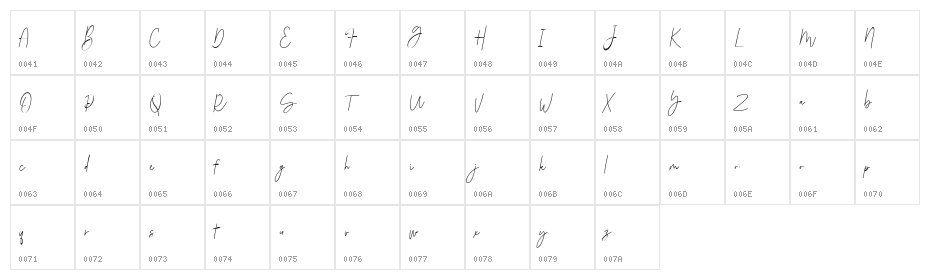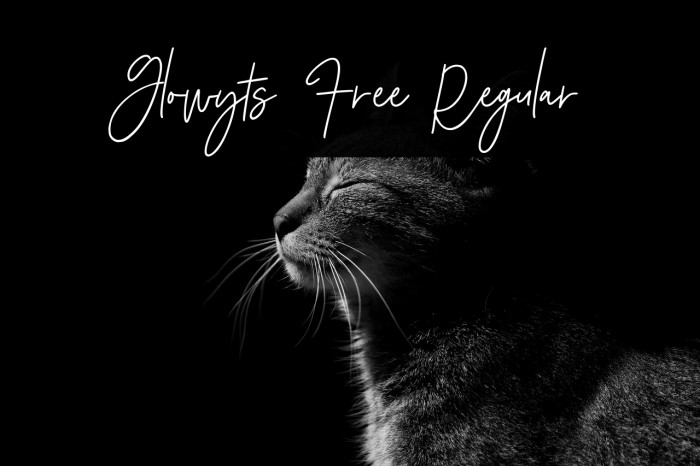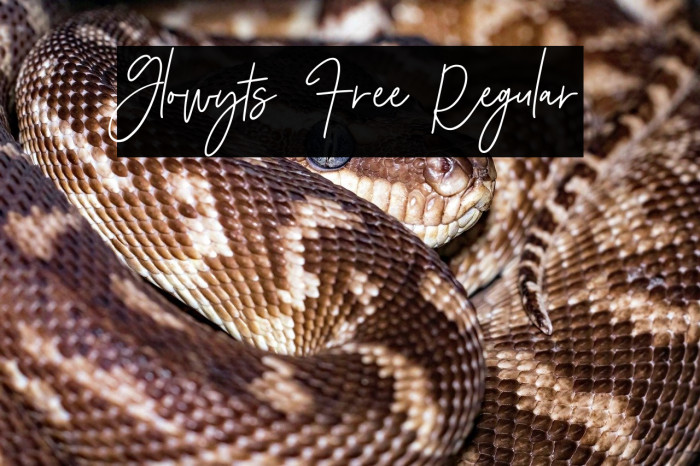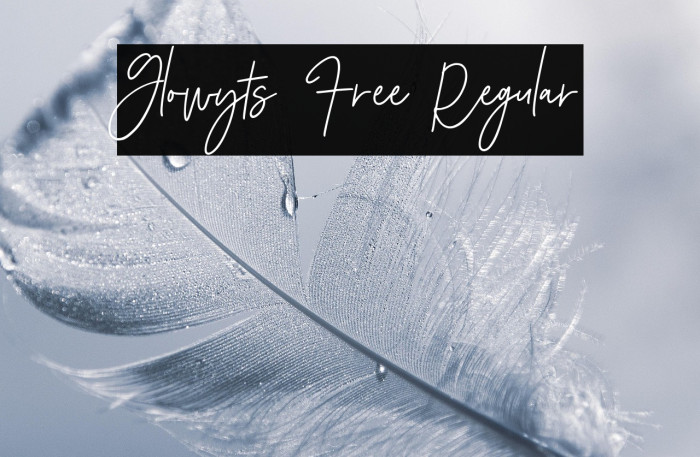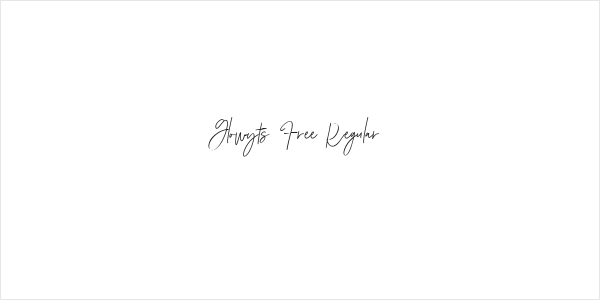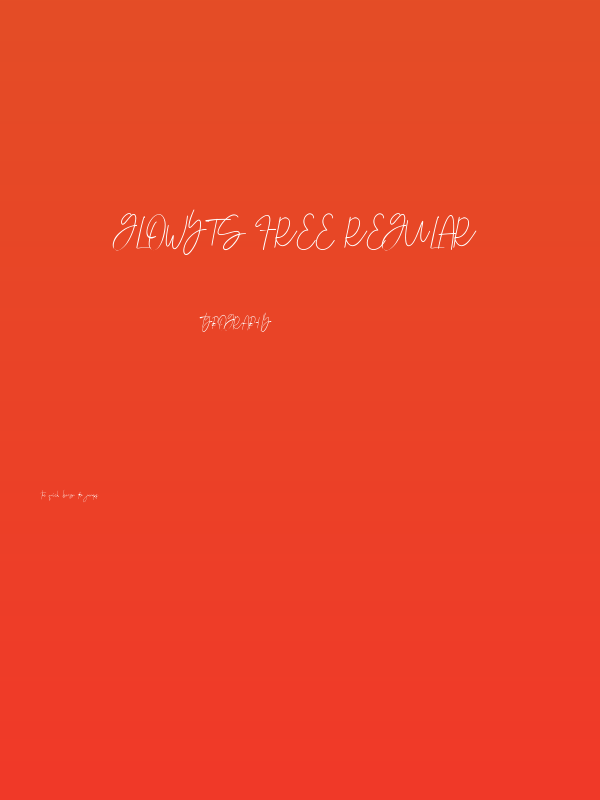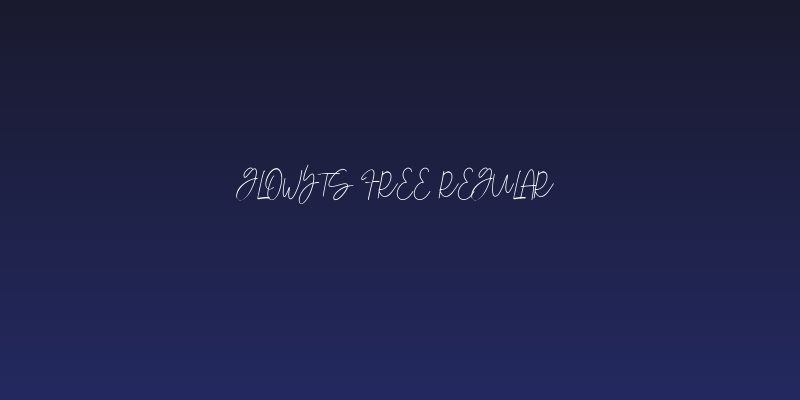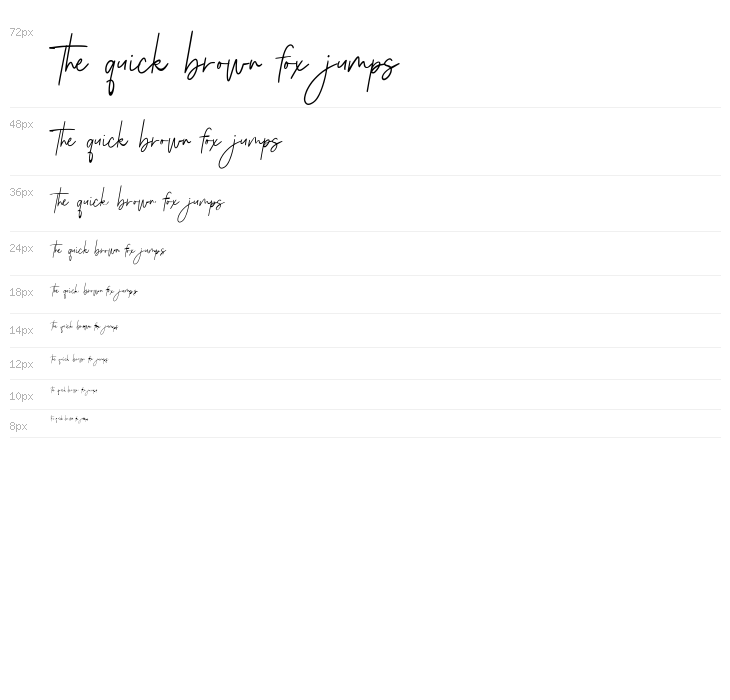
Glowyts Free Regular Font
Glowyts Free Regular Description
This font features a modern, handwritten style with a casual and flowing appearance. The characters are elegantly crafted with smooth, continuous strokes that give it a personal and artistic touch. The uppercase and lowercase letters maintain a consistent style, with a slight slant that adds to its dynamic look. The font's thin lines and open loops create a sense of lightness and sophistication. It is well-suited for designs that require a personal or creative flair, such as invitations, greeting cards, or artistic branding. The overall design is clean and legible, making it versatile for various applications.
| Proposed Projects | Ideal for invitations, greeting cards, artistic branding, and personal projects. |